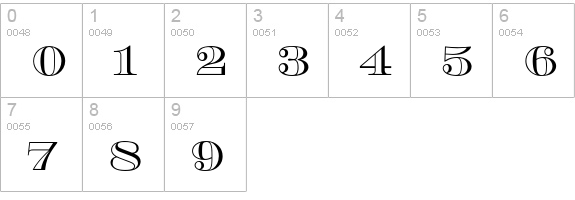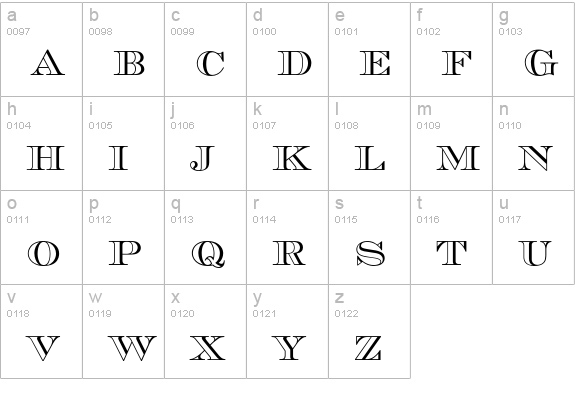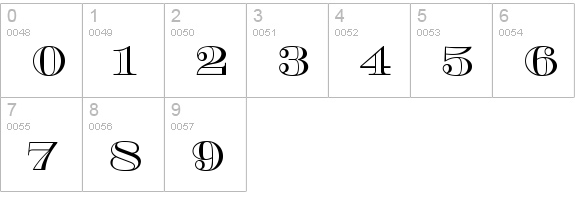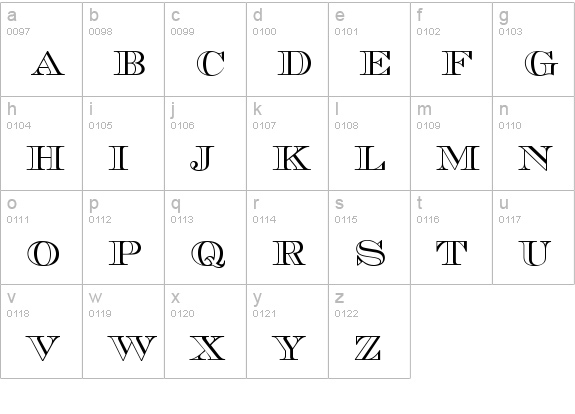
Chevalier Caps Outline Font Details
Chevalier Caps Outline font is a timeless and elegant typeface that exudes sophistication and style. Featuring sleek and refined lines, this font is perfect for adding a touch of class to any design project. The outline style adds a modern twist to the classic serif font, making it versatile and eye-catching. Best of all, Chevalier Caps Outline font is available for free download at FontsMarket.com. Whether you're working on a branding project, a poster design, or any other creative endeavor, this font will elevate your work to the next level. Its clean and distinct letterforms make it ideal for headlines, titles, and logos, ensuring that your message stands out with a touch of sophistication. Download Chevalier Caps Outline font today and add a touch of elegance to your designs.